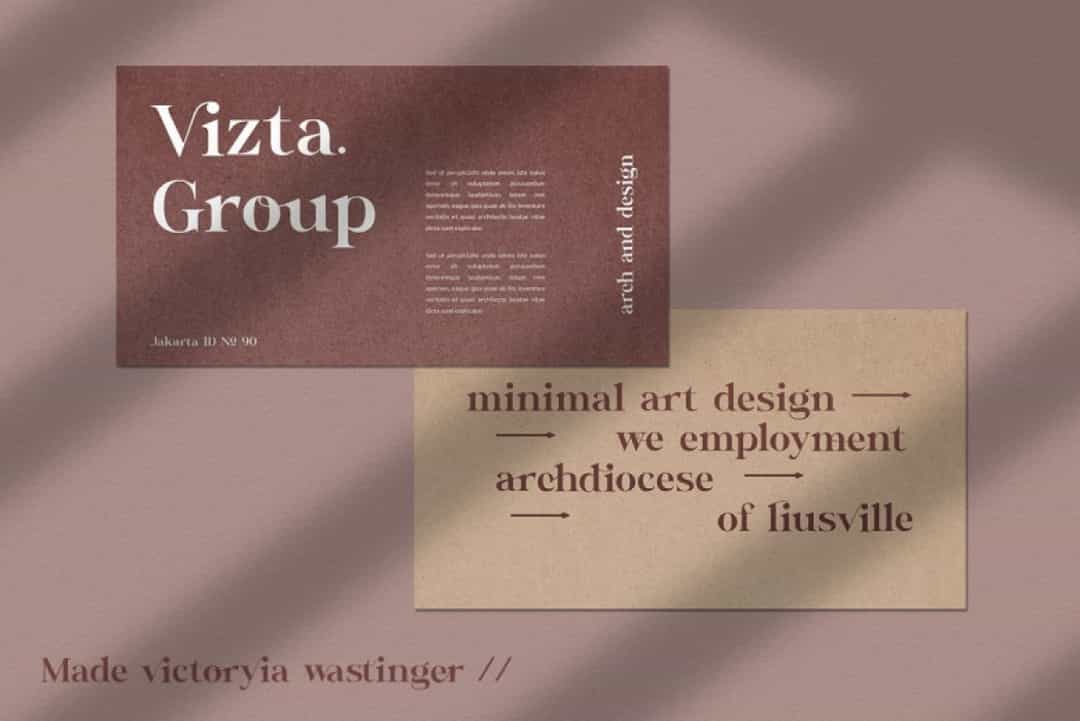
Wastinger is an elegant show serif font with an impressive style. This elegantly designed font can be utilized in various applications from packaging and branding design to logo creation. This font must be in your library!